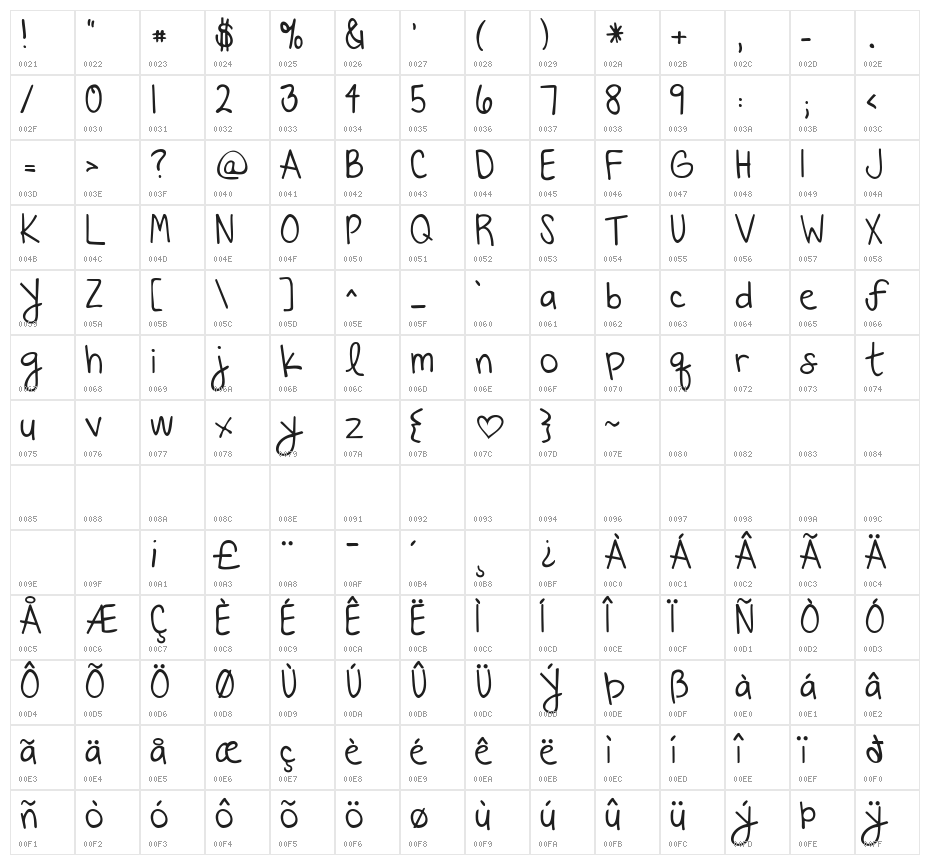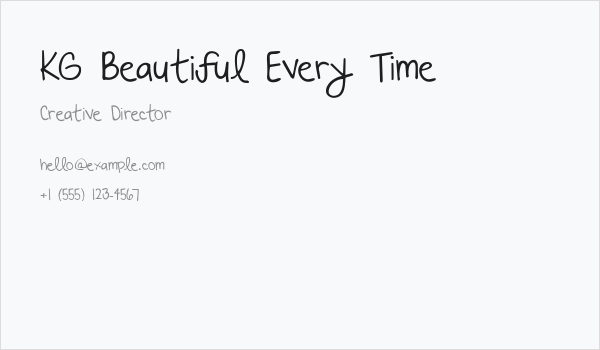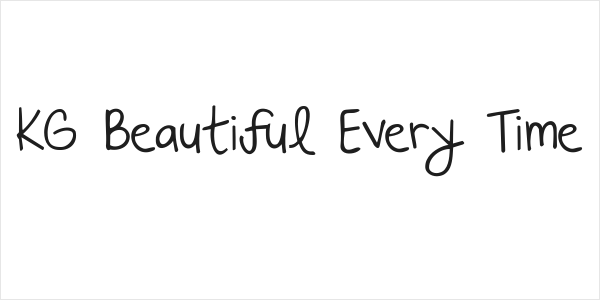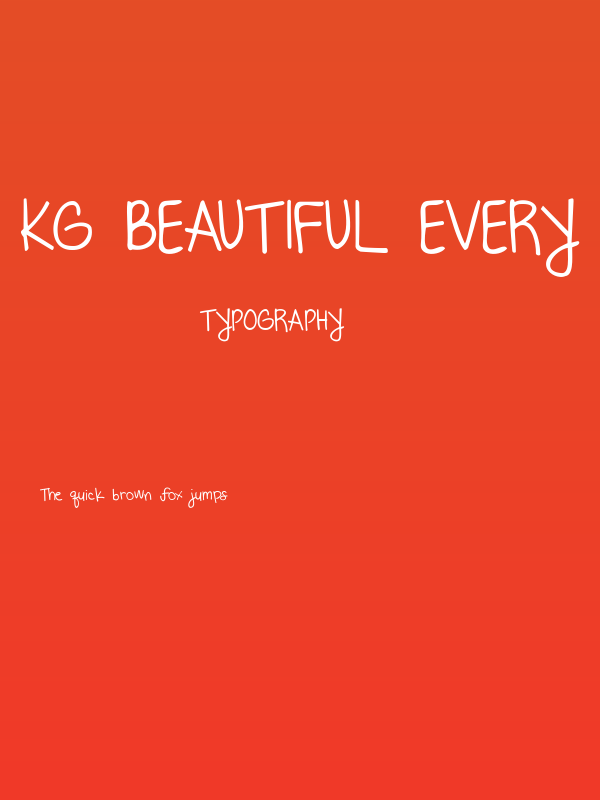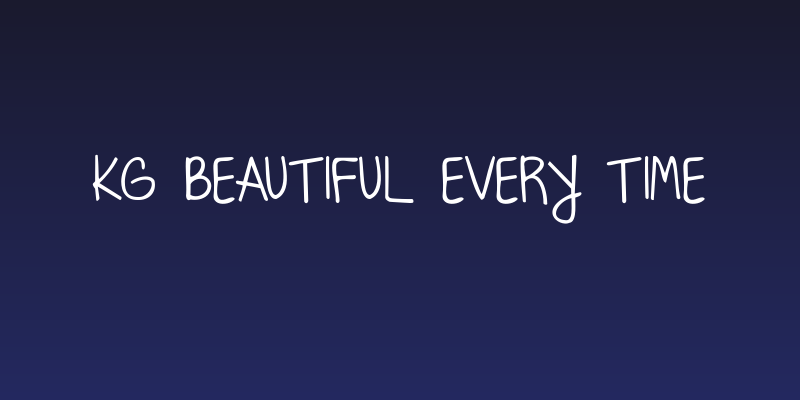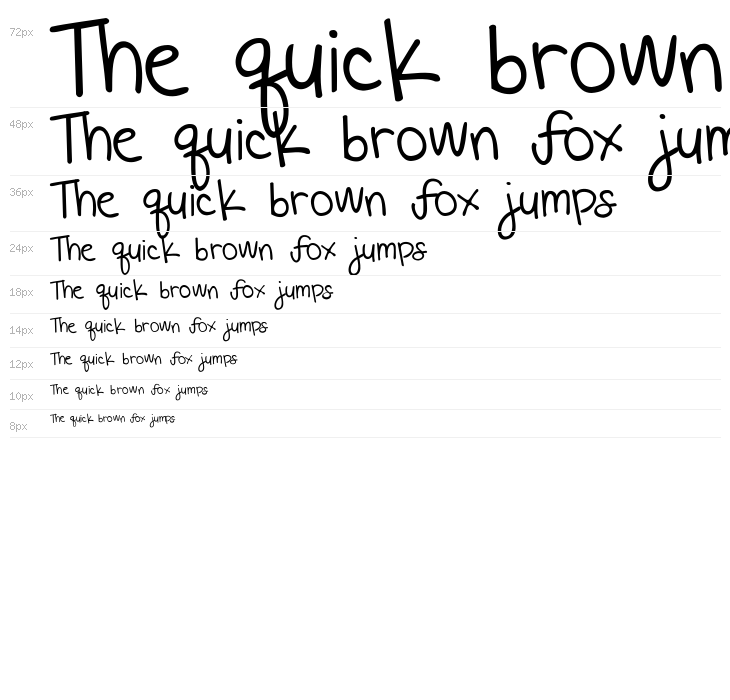
KG Beautiful Every Time Font
KG Beautiful Every Time Description
This font features a playful and whimsical handwritten style, characterized by its smooth, rounded strokes and casual appearance. The letters are slightly irregular, giving it a personal and friendly feel. The uppercase letters are bold and prominent, while the lowercase letters maintain a consistent flow with a touch of elegance. Numbers and special characters are crafted to match the overall aesthetic, ensuring a cohesive look. The font's informal nature makes it ideal for projects that require a touch of personality and warmth.
| Proposed Projects | Ideal for greeting cards, children's books, playful branding, and social media graphics. |